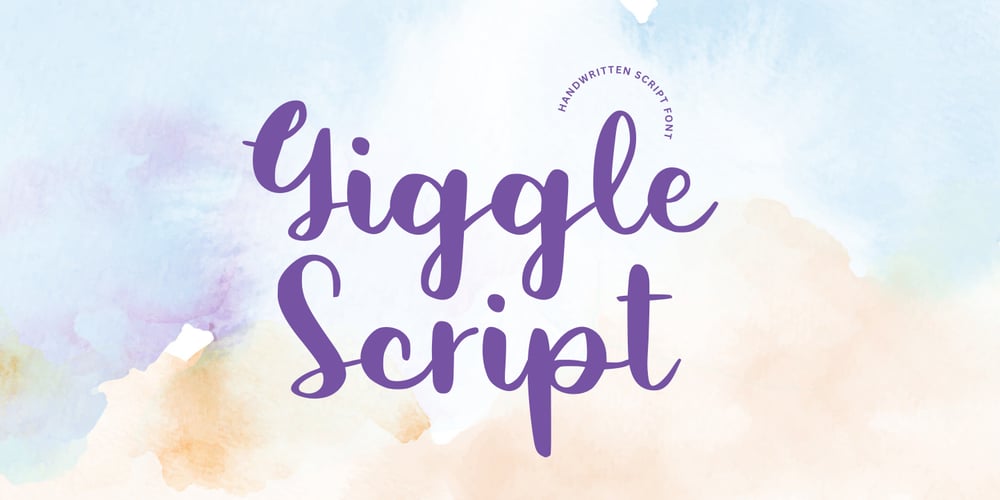
Giggle Script Font Family was designed by Muhamad Yusron Billah and published by Sronstudio. Giggle Script contains 1 styles and family package options. Giggle Script is a playful handwritten script font with a cheerful and casual feel. Its smooth, flowing lines make it perfect for fun, creative projects, invitations, and personal branding. Giggle Script adds a touch of personality and joy to any design.Included:- Upper & Lowercase- Ligatures- Numeral & Punctuation- PUA Encoded- Multilingual support- Simple Installation- Work both on Mac and WindowsThank you very much 🙂